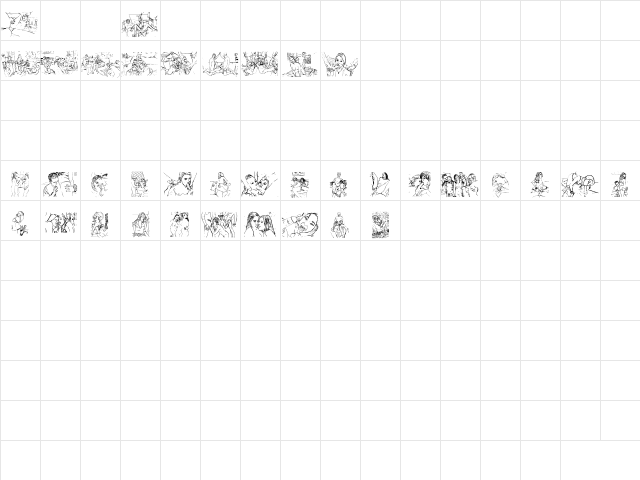
Trendy Pornography Regular
Design Context for Trendy Pornography Typeface
Trendy Pornography is a composed and adaptable typeface that performs quietly and consistently across a wide range of design contexts.